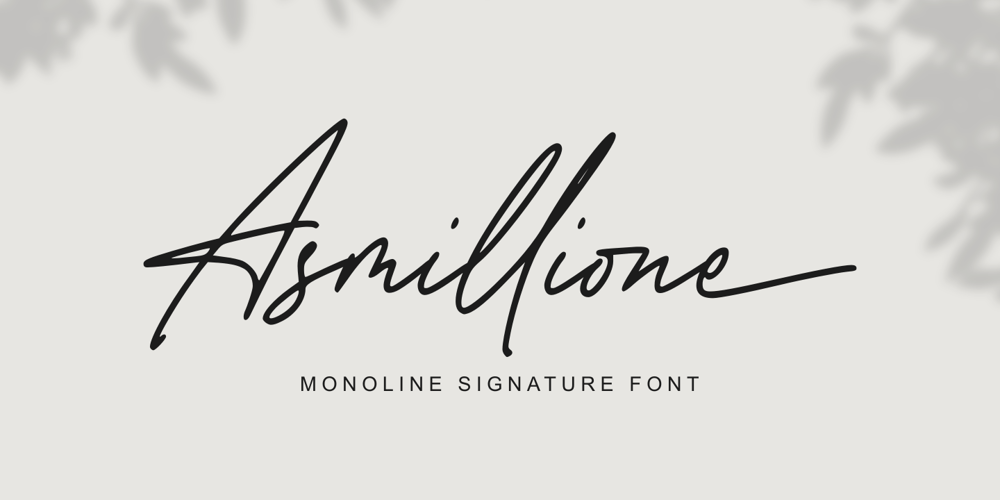
Asmillione Font Family was designed by Faja Abdul Fatah and published by Sibelumpagi. Asmillione contains 1 styles and family package options. Asmillione is a monoline signature font with a handwriting feel. It comes with ligatures and alternates, also supports multiple languages.It’s perfect for logos, product packaging, wedding invitations, branding, headlines, signage, labels, signature, book covers, posters, quotes, and more.